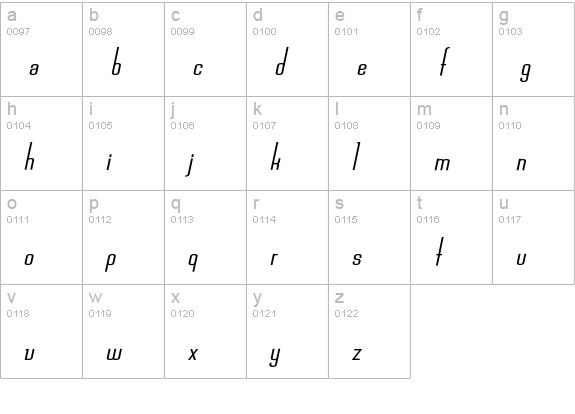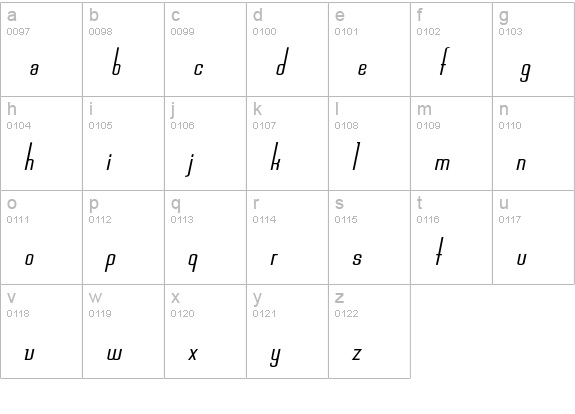
Chasline-BoldOblique Font Details
Chasline-BoldOblique font is a stunning display typeface that exudes elegance and sophistication. Its bold and oblique design creates a striking visual impact, making it perfect for headlines, logos, and other design projects that require a touch of modernity. The sharp angles and sleek curves of this font lend a sense of dynamism and energy to any text. What sets Chasline-BoldOblique font apart is not just its aesthetic appeal, but also its versatility. Whether you're designing a poster, website, or branding materials, this font will surely make your text stand out and leave a lasting impression on your audience. The best part? Chasline-BoldOblique font is available for free download at FontsMarket.com. So go ahead and elevate your design projects with this stylish and impactful typeface today!